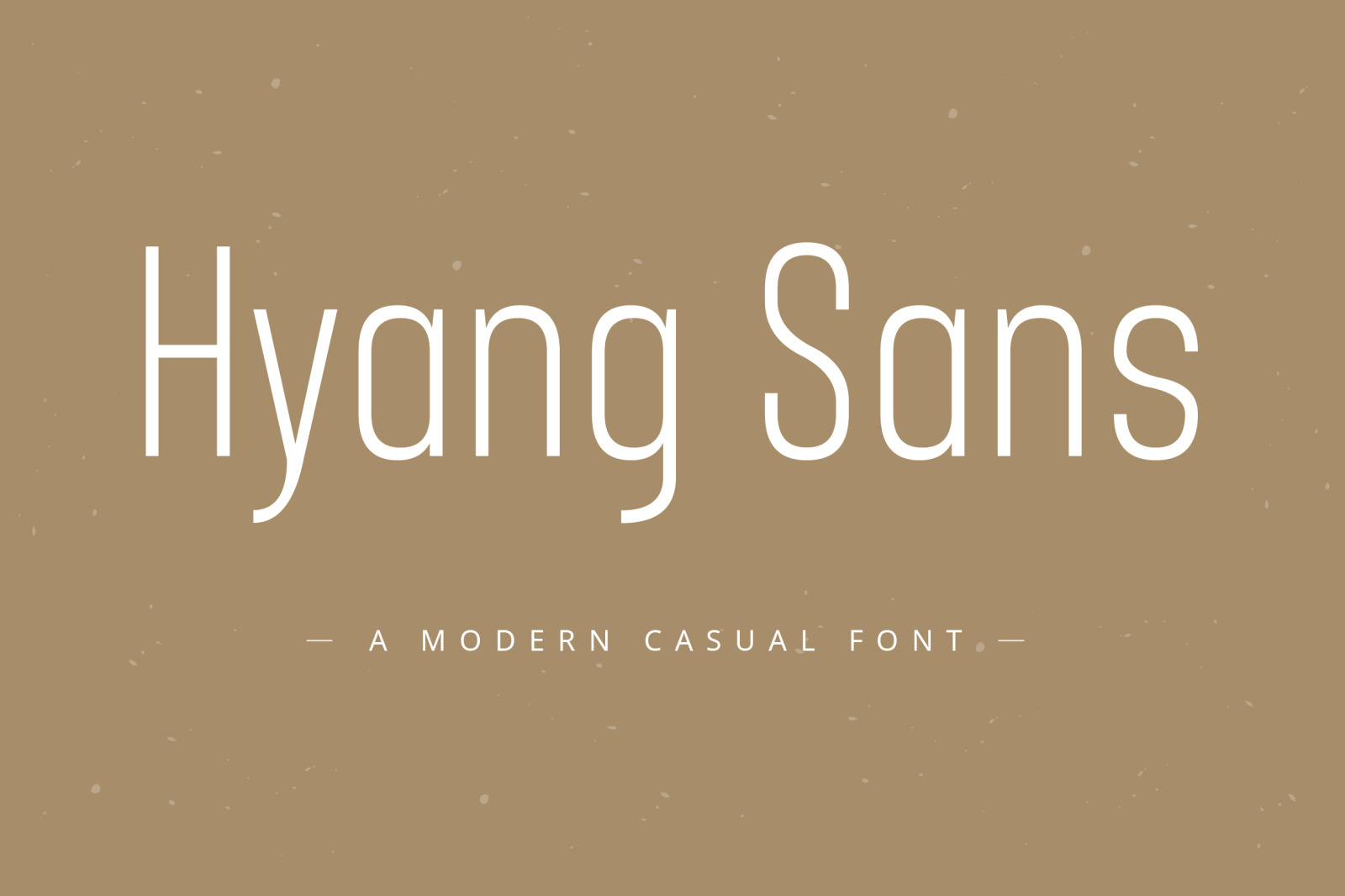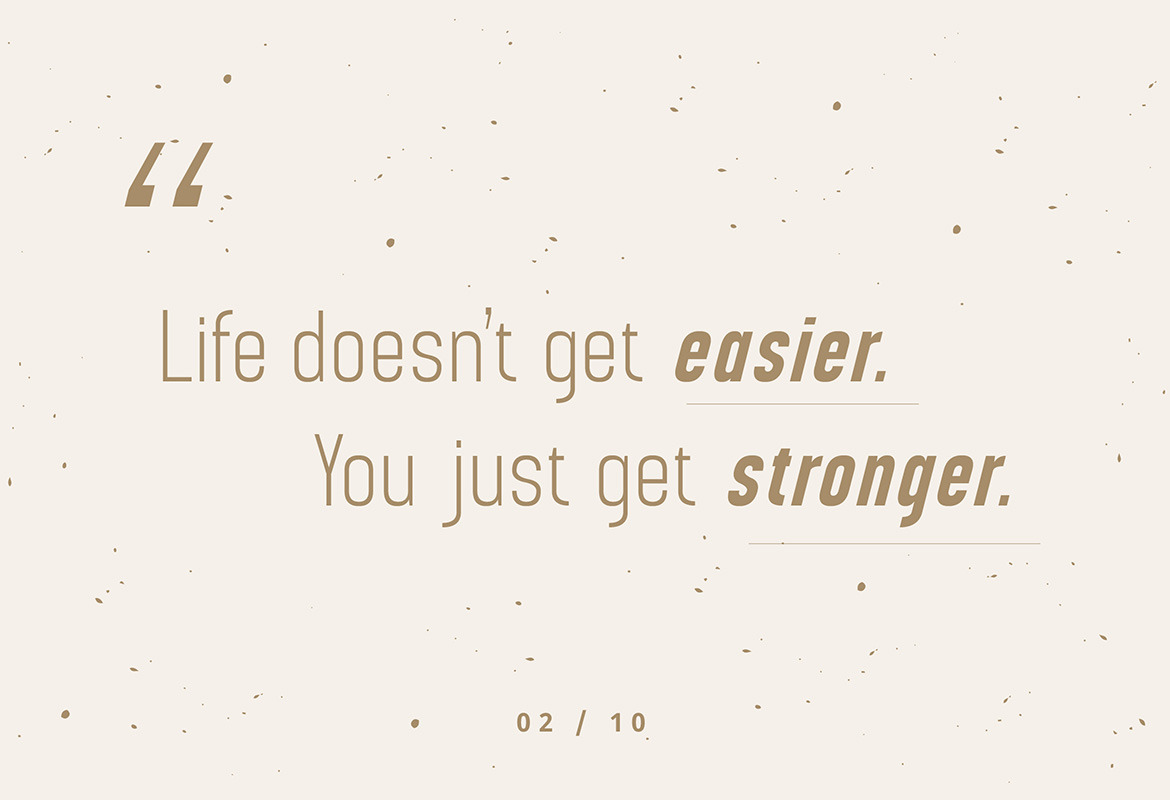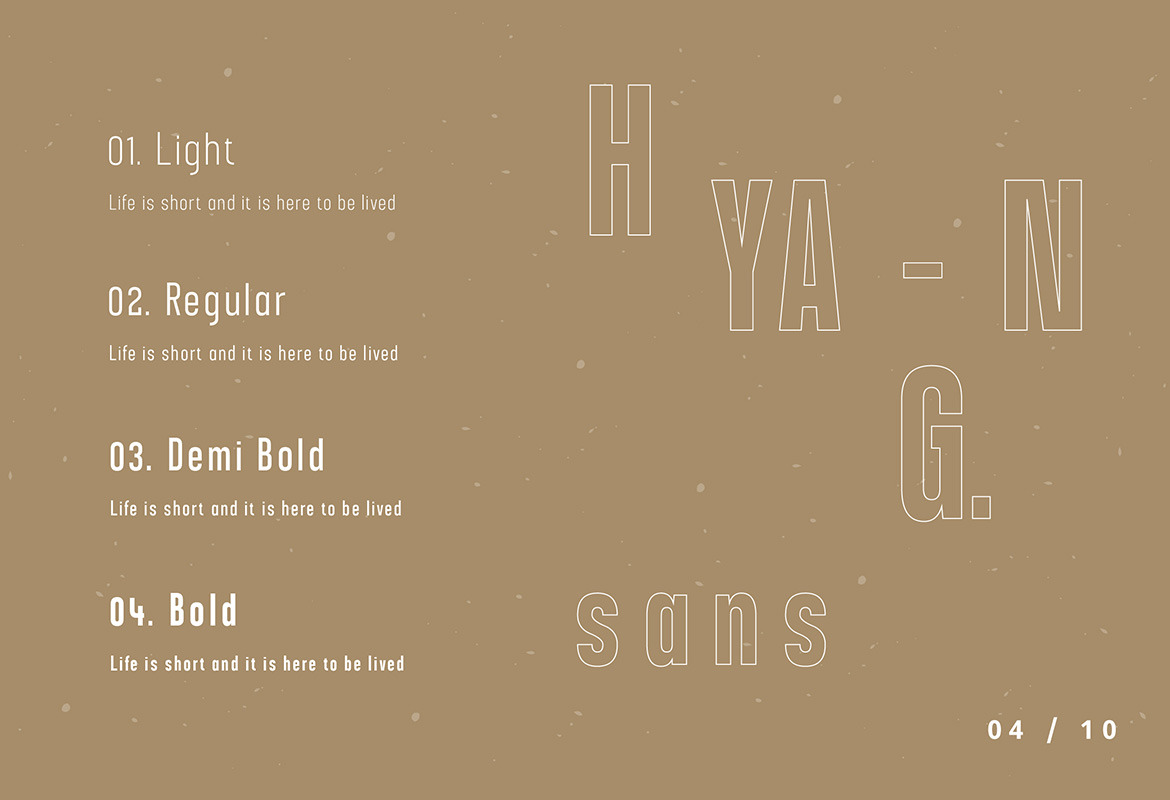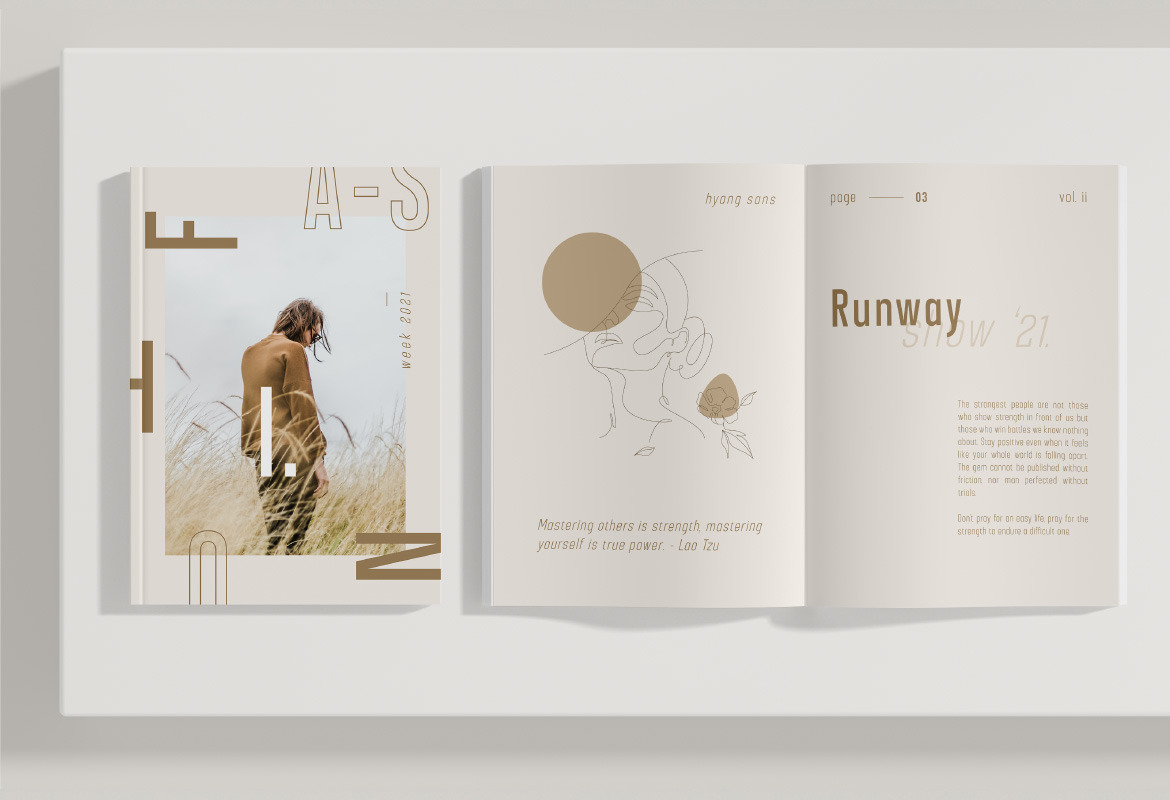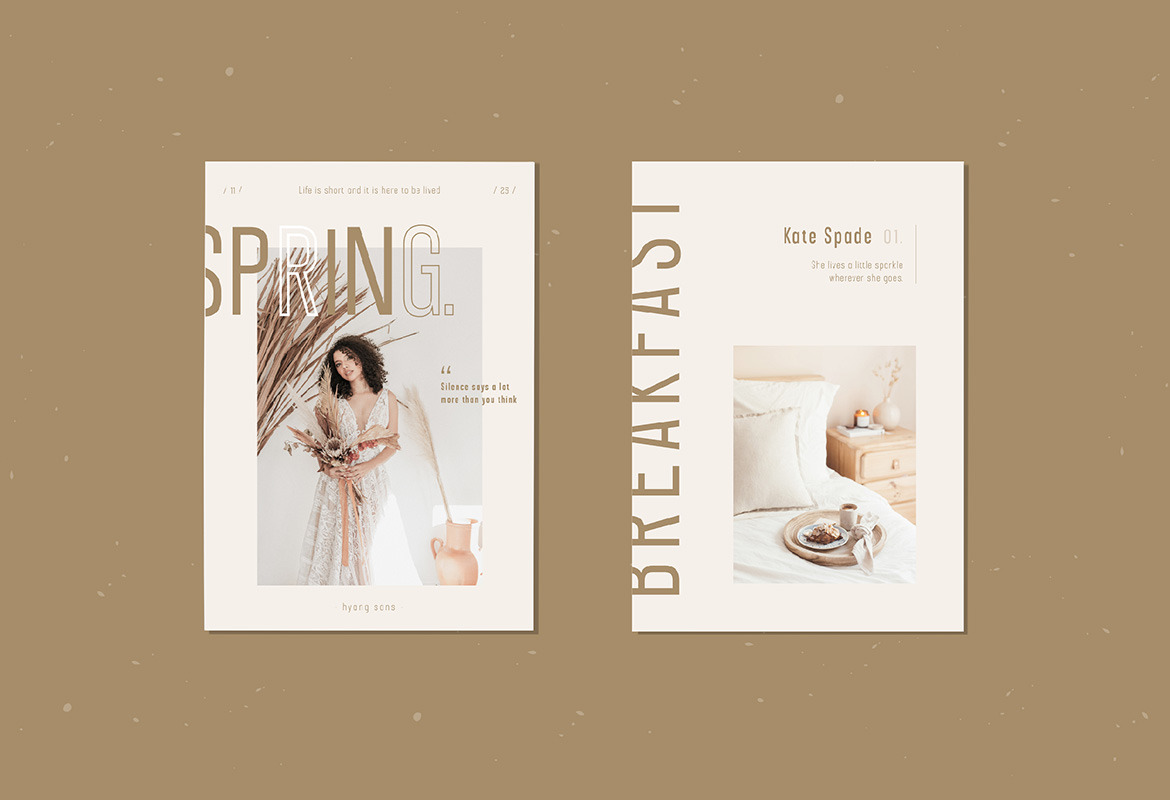
Hyang Modern Sans Serif Font
Sans serif is a never die font that will be needed now and forever on many occasions or any other display works. We brought you Hyang Sans, a modern sans serif font that will complement your collection. This font is suitable for regular use, textbook, quote, branding product, book cover, and more. It is also perfect for text overlay that fits any background image or formal and semi-formal text.
Hyang Sans provides you with 4 different font styles, light, regular, demi bold and every package of this font consists of a full set of alphabets, numbering and punctuation, and it supports multilingual uses by providing international characters.